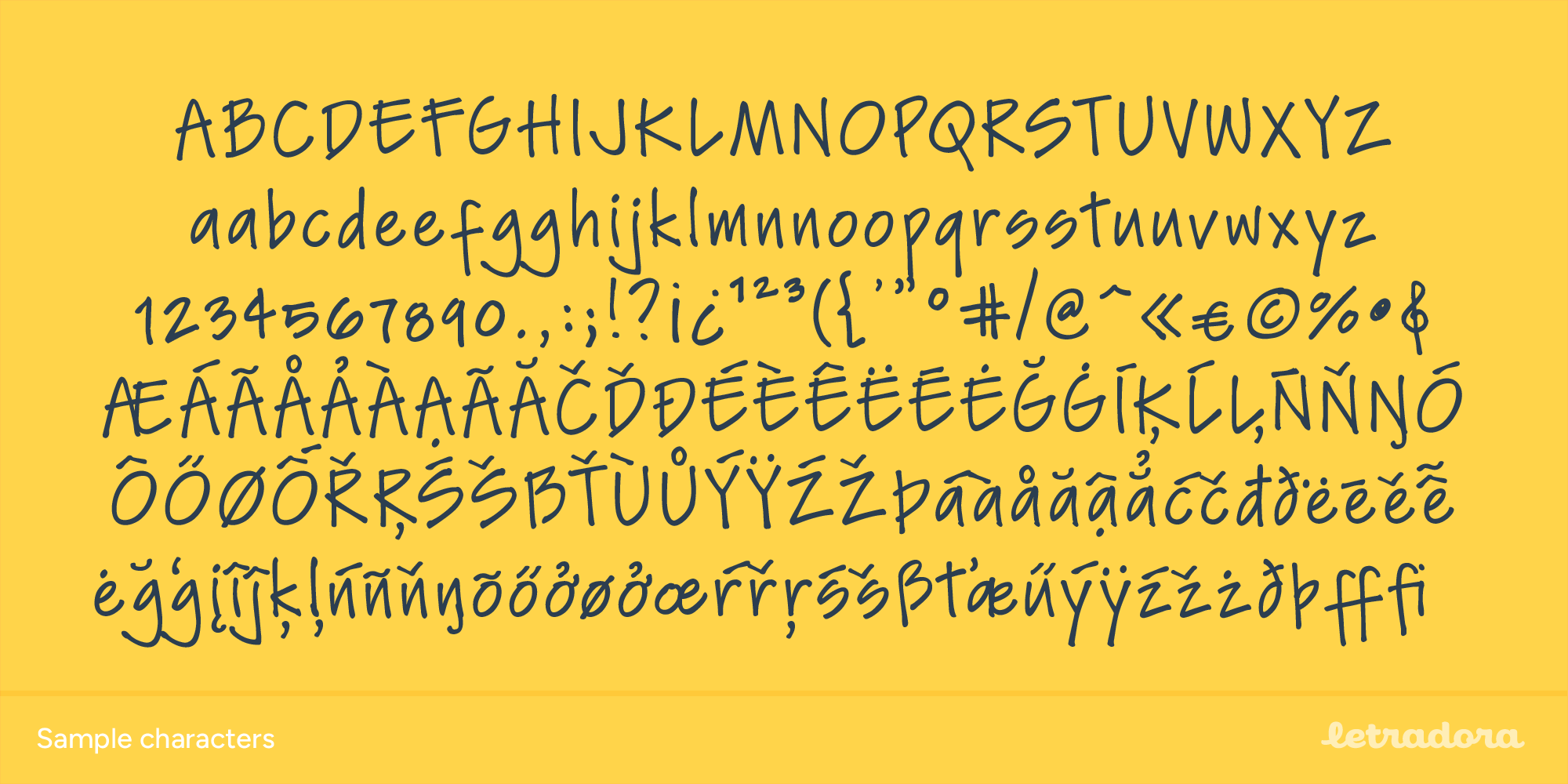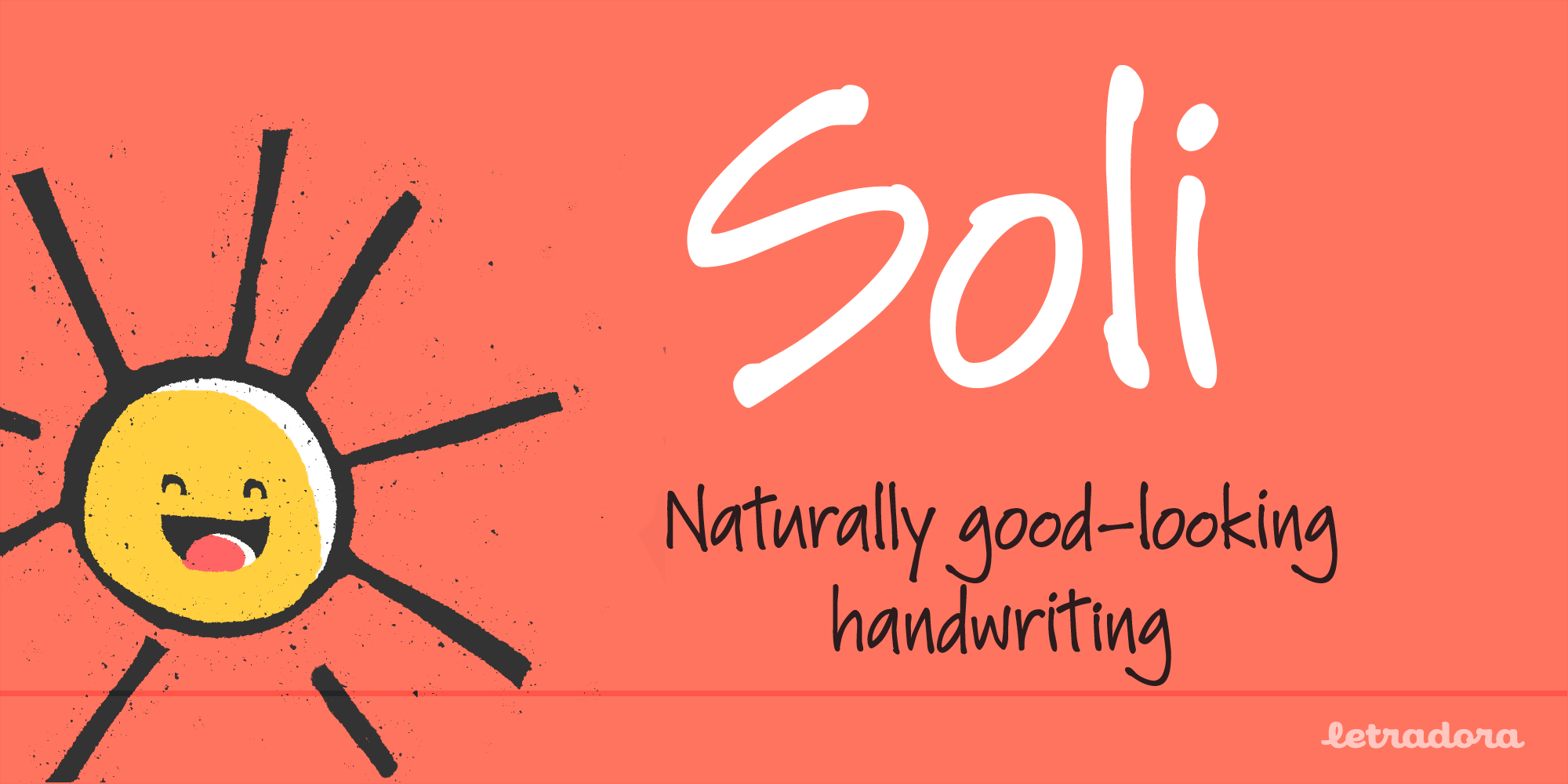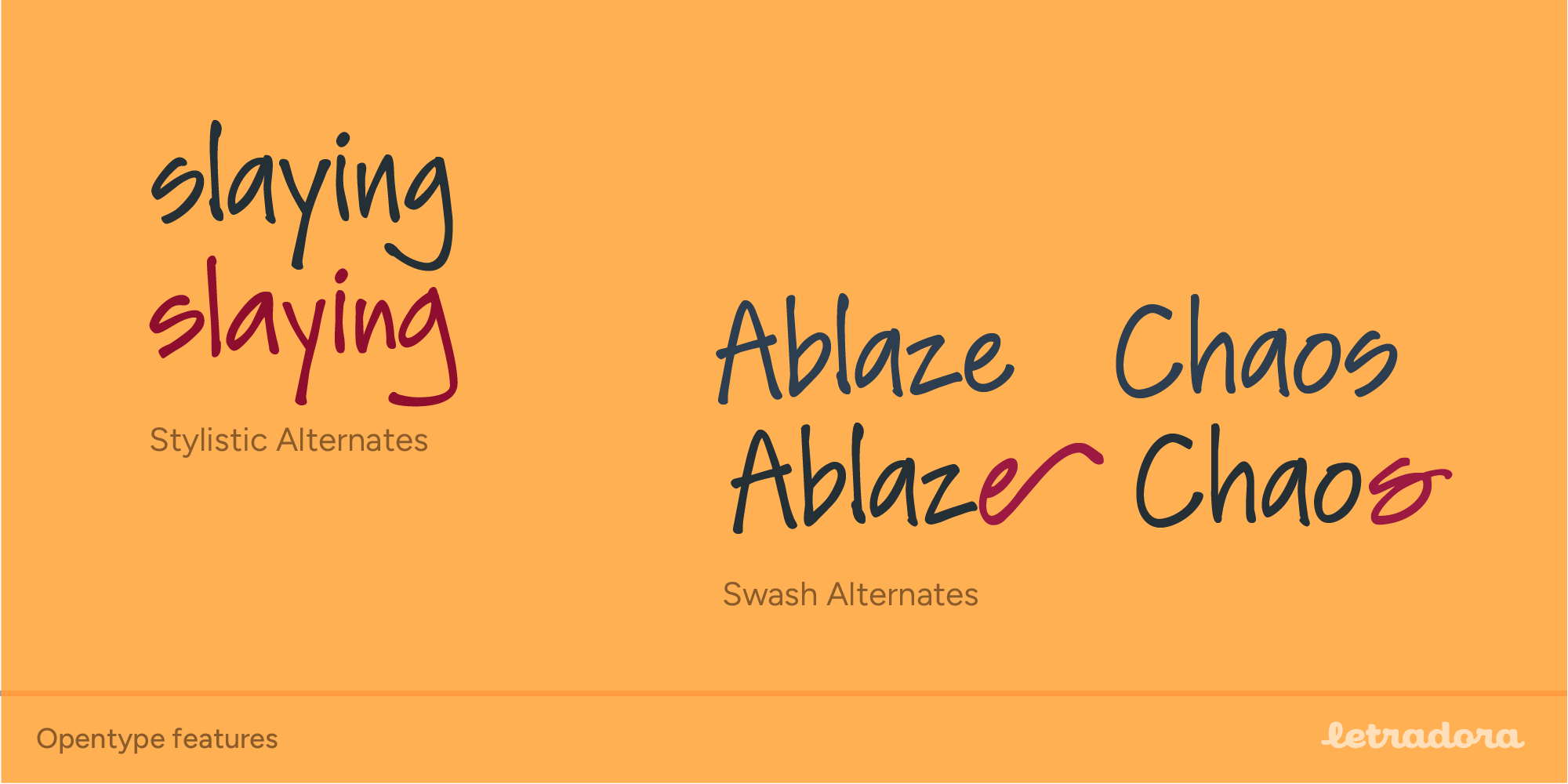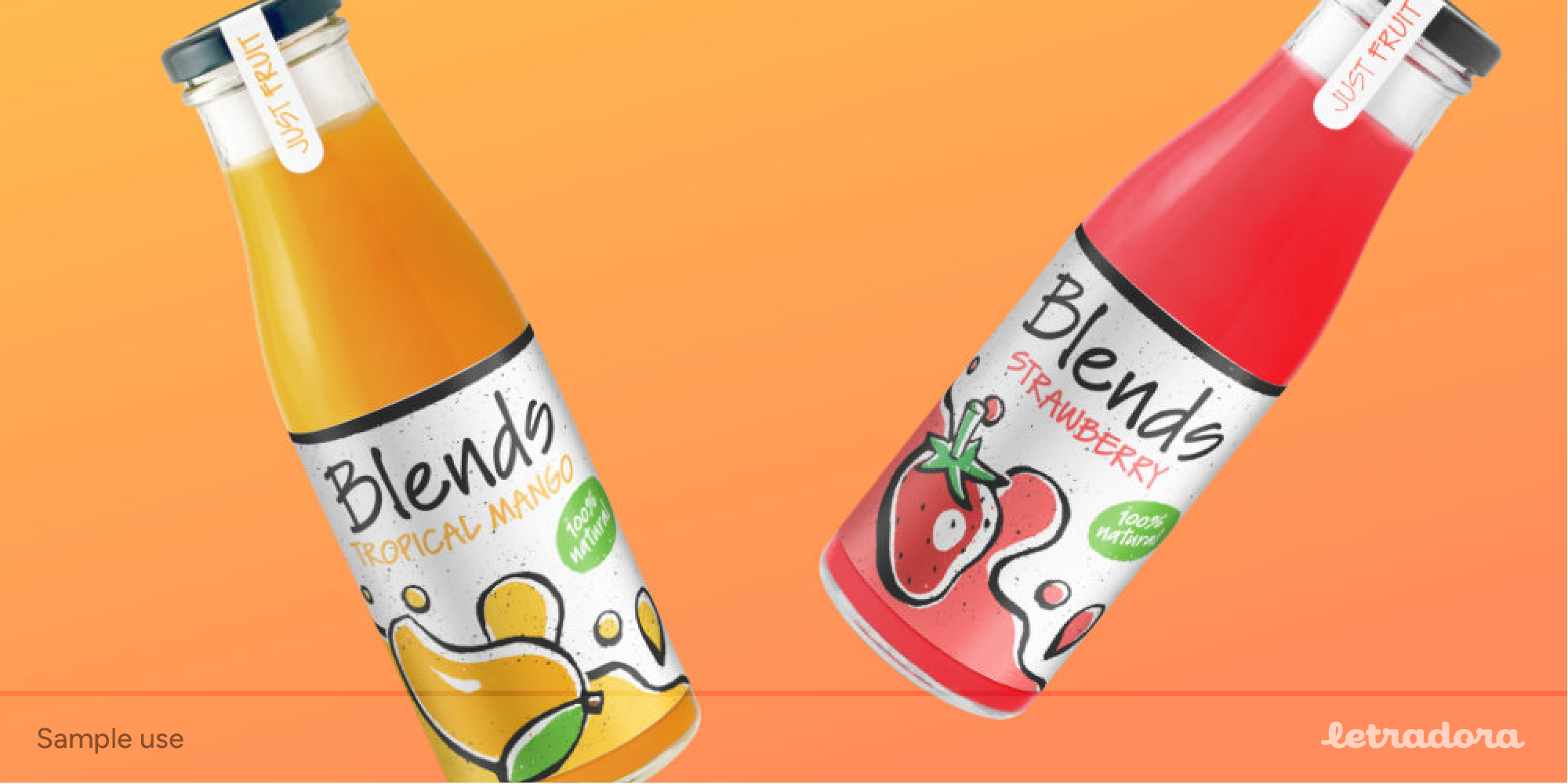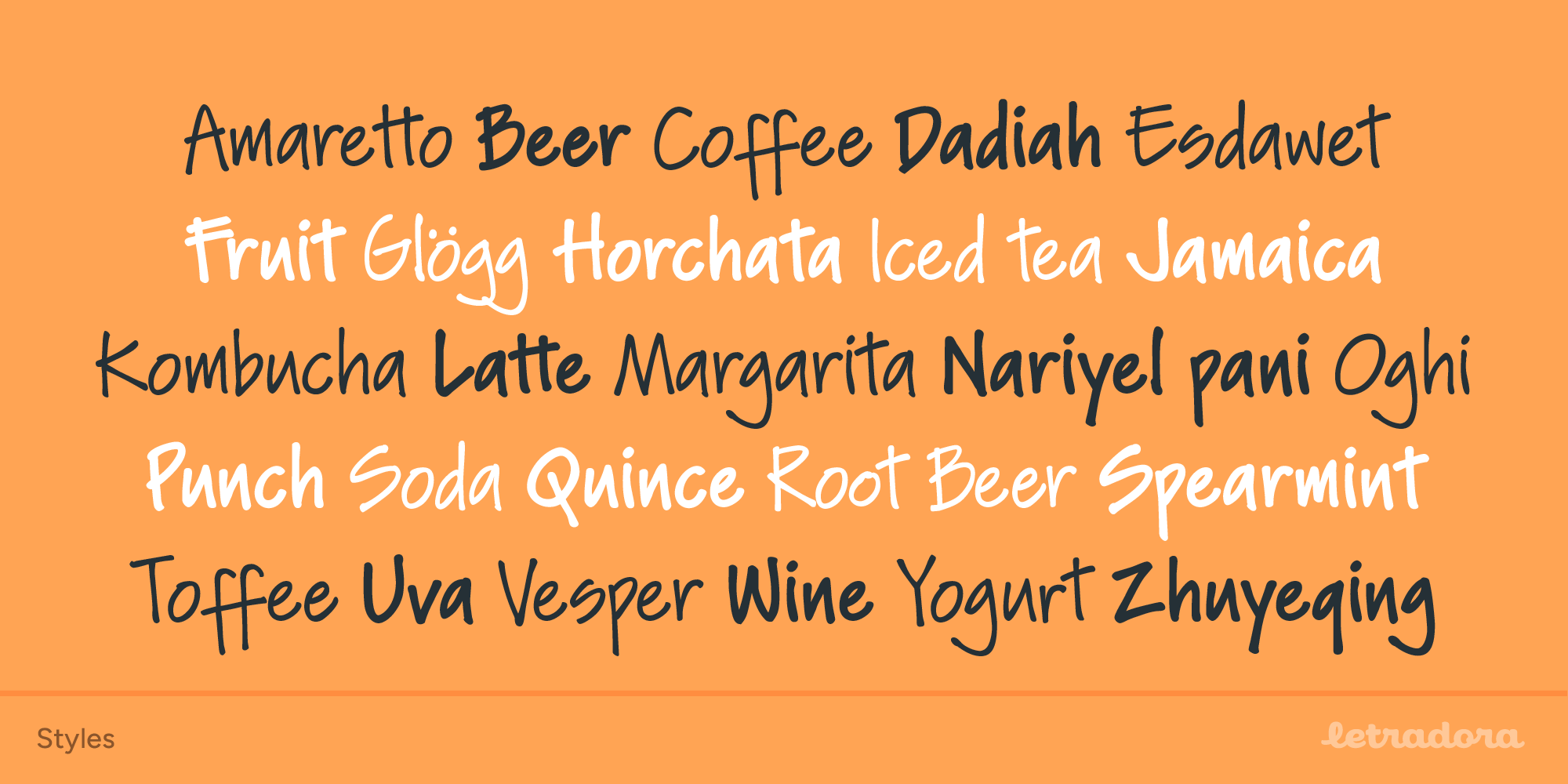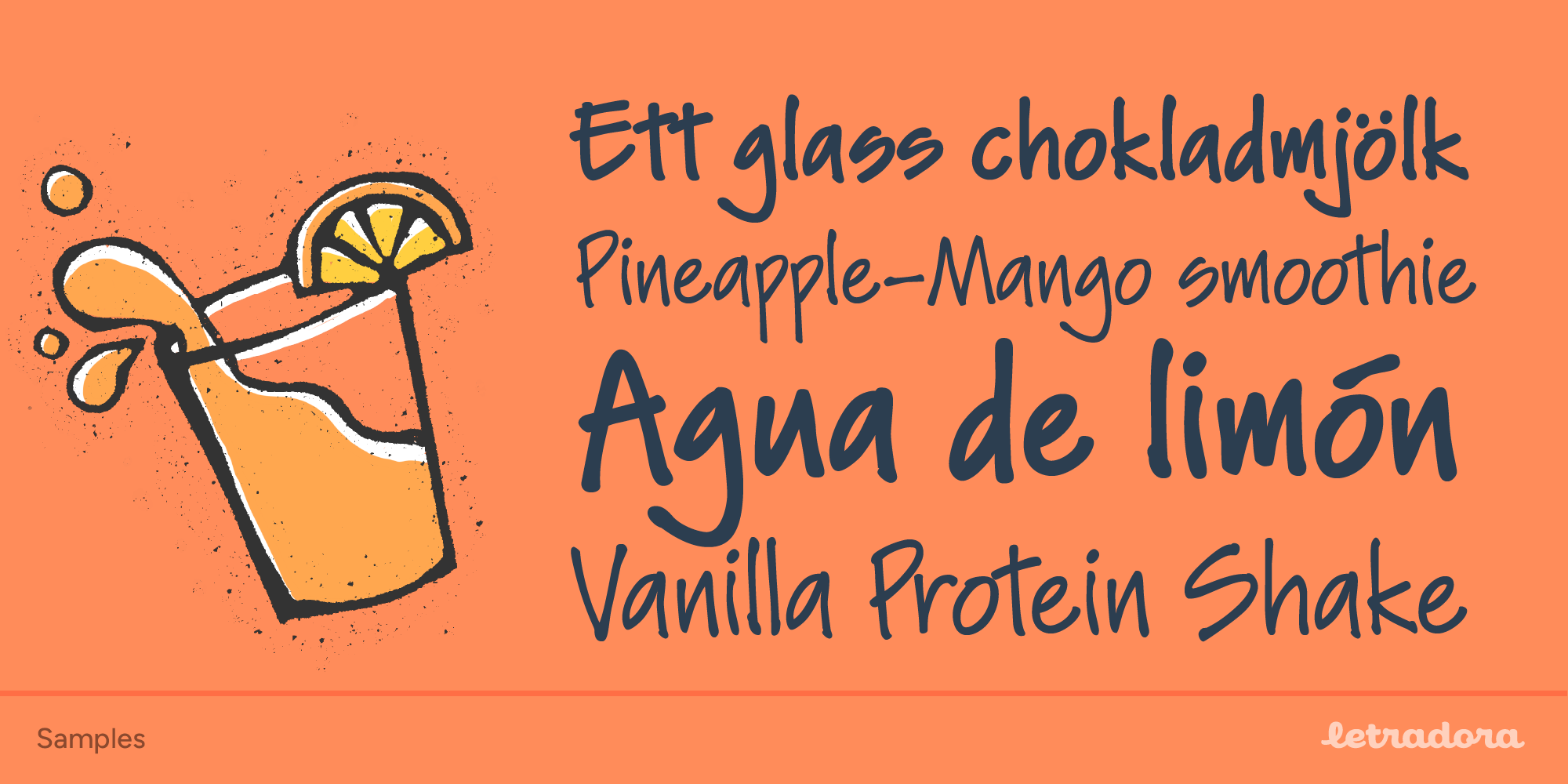
Soli
A naturally good-looking handwritten font.
Based on. my sister’s awesome handwriting, Soli can be used both for architectural-lettering applications or as a legible, friendly handwriting font. Great wherever a handmade touch is needed.
Regular and bold styles. It supports most Latin languages.